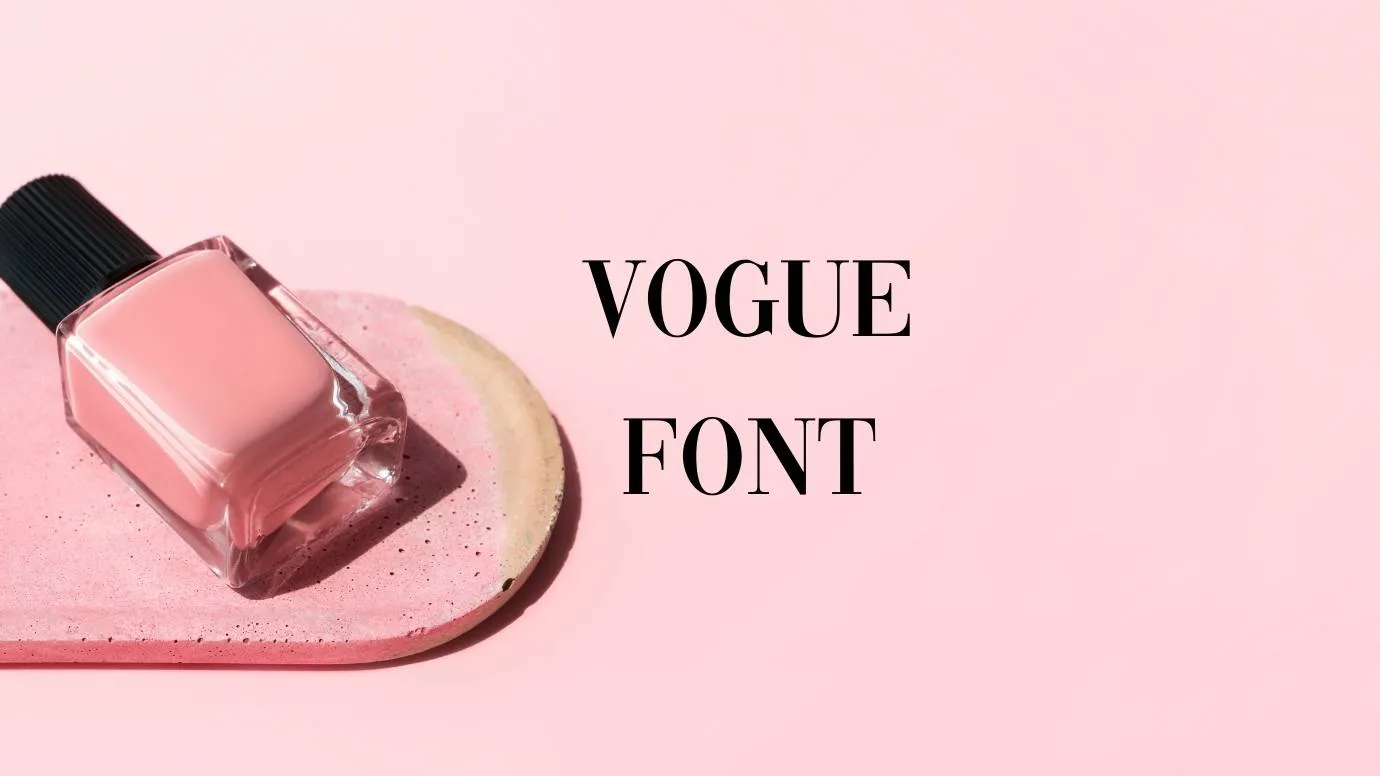
Vogue Font Family is a popular American Magazine based on beauty and fashion. The magazine is popular not only in America, in fact worldwide. Apart from the magazine, the font used on its logo also captured maximum attention.
After massive success, Vogue font was originated with identical letterings and characters that work well with collegiate font. It has a wide range of characters that are easy to read and acknowledge. This serif font is a high-quality typeface with various characteristics and attributes.
Vogue Font Family
DesignerVladimir Nikolic
TypeSerif